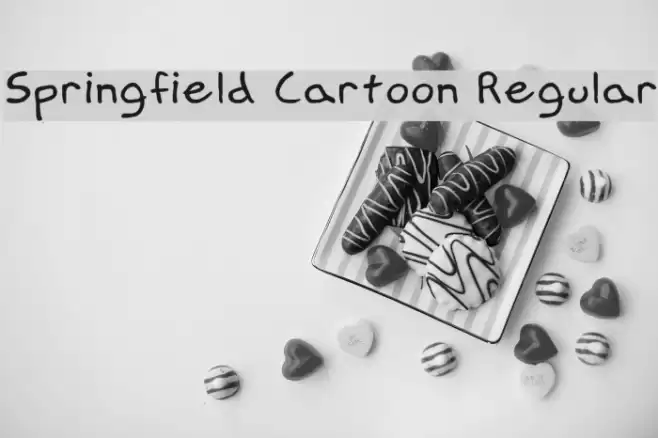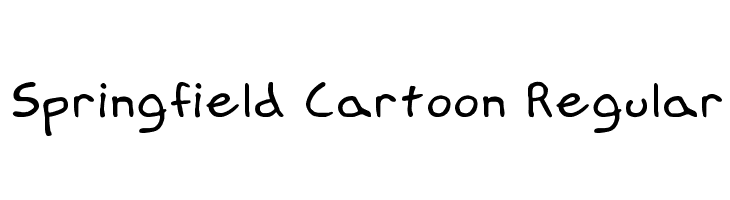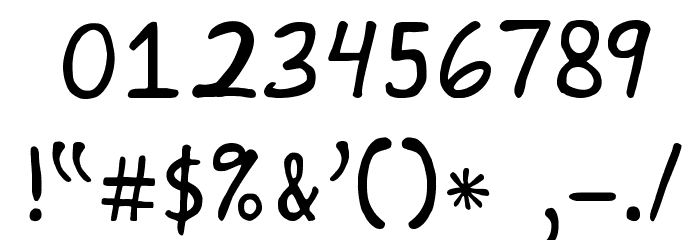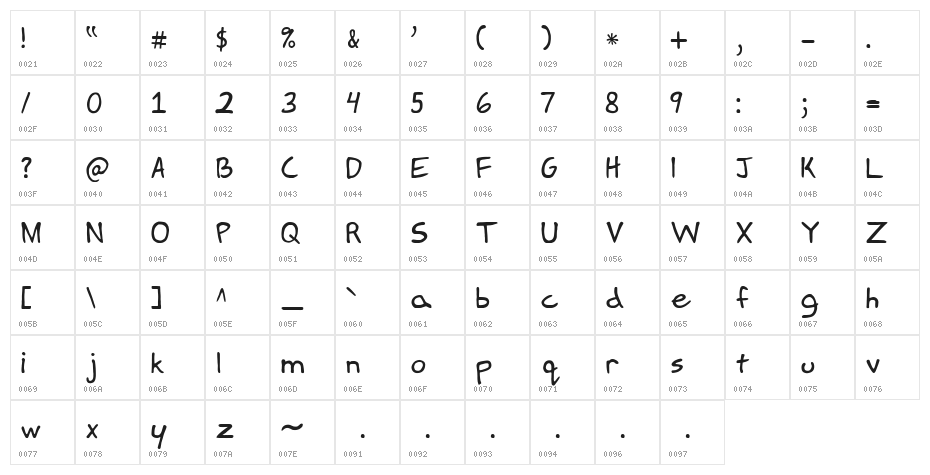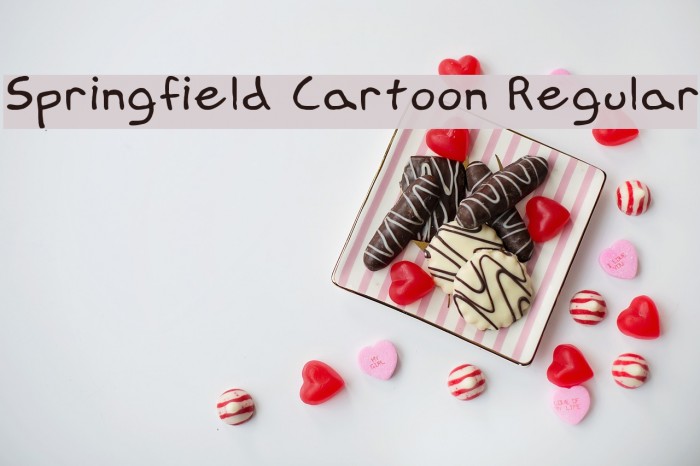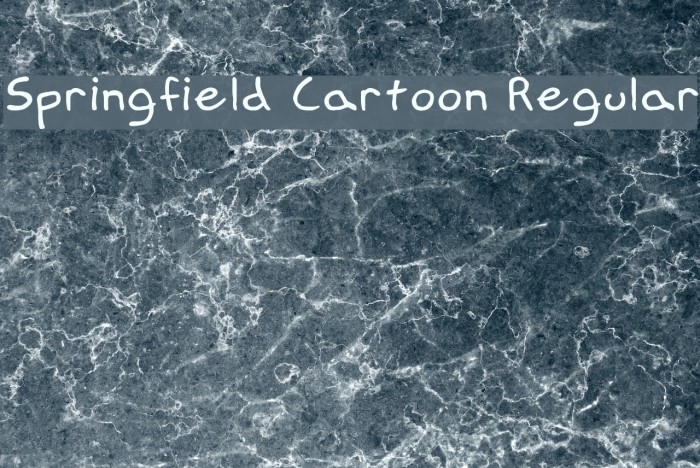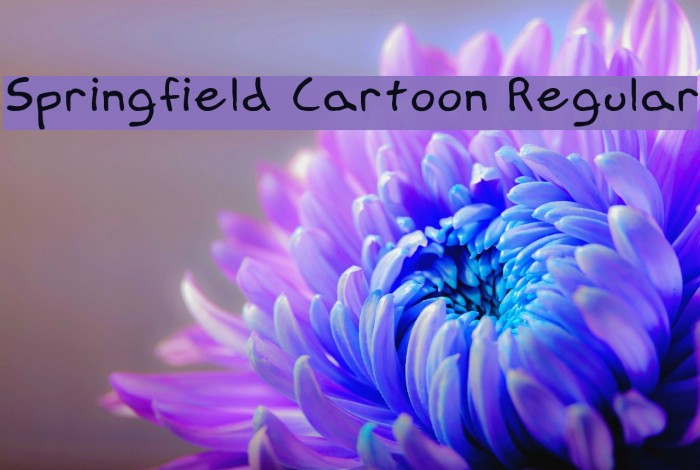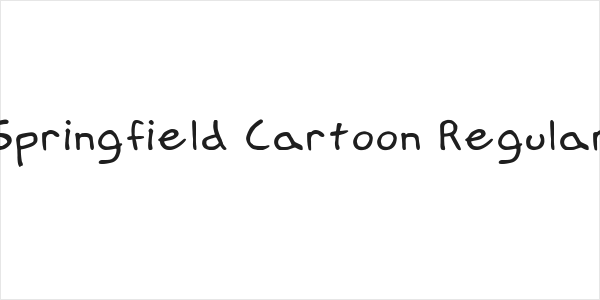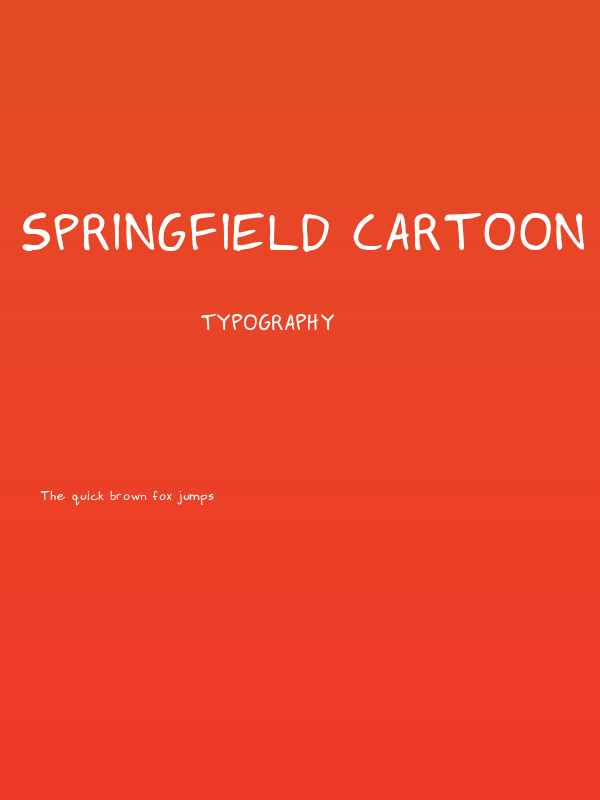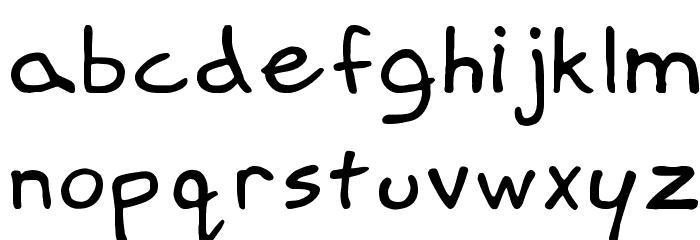
Springfield Cartoon Regular
This playful and informal font features a hand-drawn style that mimics the look of casual handwriting. The letters are slightly irregular, giving it a whimsical and approachable feel. The strokes are consistent in thickness, providing a uniform appearance across all characters. The rounded edges and slight slant add to its friendly and relaxed vibe. This font includes a full set of uppercase and lowercase letters, numbers, and a variety of special characters, making it versatile for different uses.
A playful, hand-drawn font with a casual and whimsical style from Comic fonts.
- Proposed Projects: Ideal for children's books, comic strips, casual invitations, and playful branding.
- Overall Style: Casual
- Use Case: Headlines, Informal text, Branding